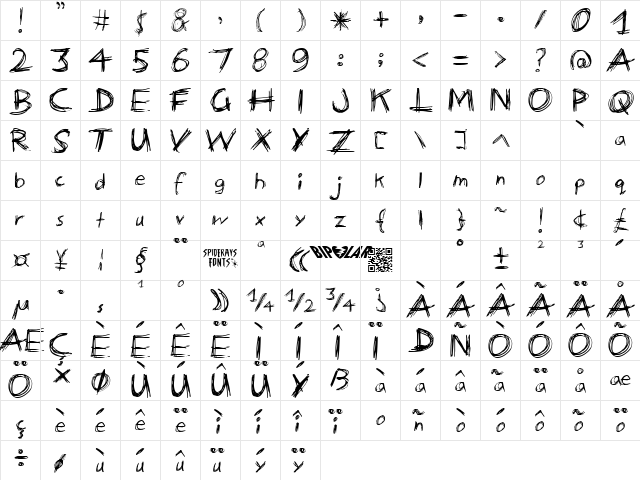
manic-depressive Regular
| Foundry | SpideRaYsfoNtS |
| Designer | SpideRaY |
Design Context for manic-depressive Typeface
manic-depressive is a composed and adaptable typeface that performs quietly and consistently across a wide range of design contexts.